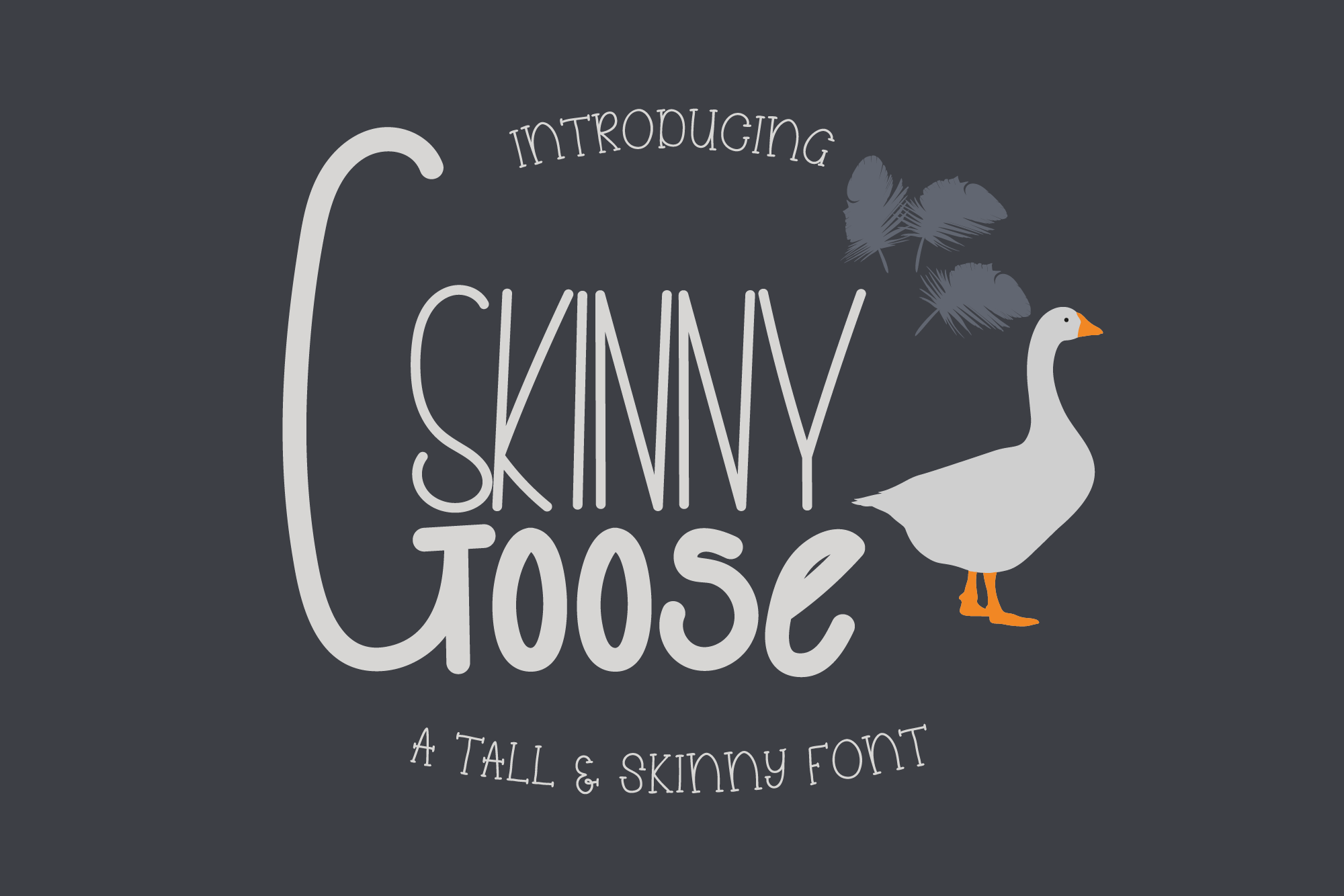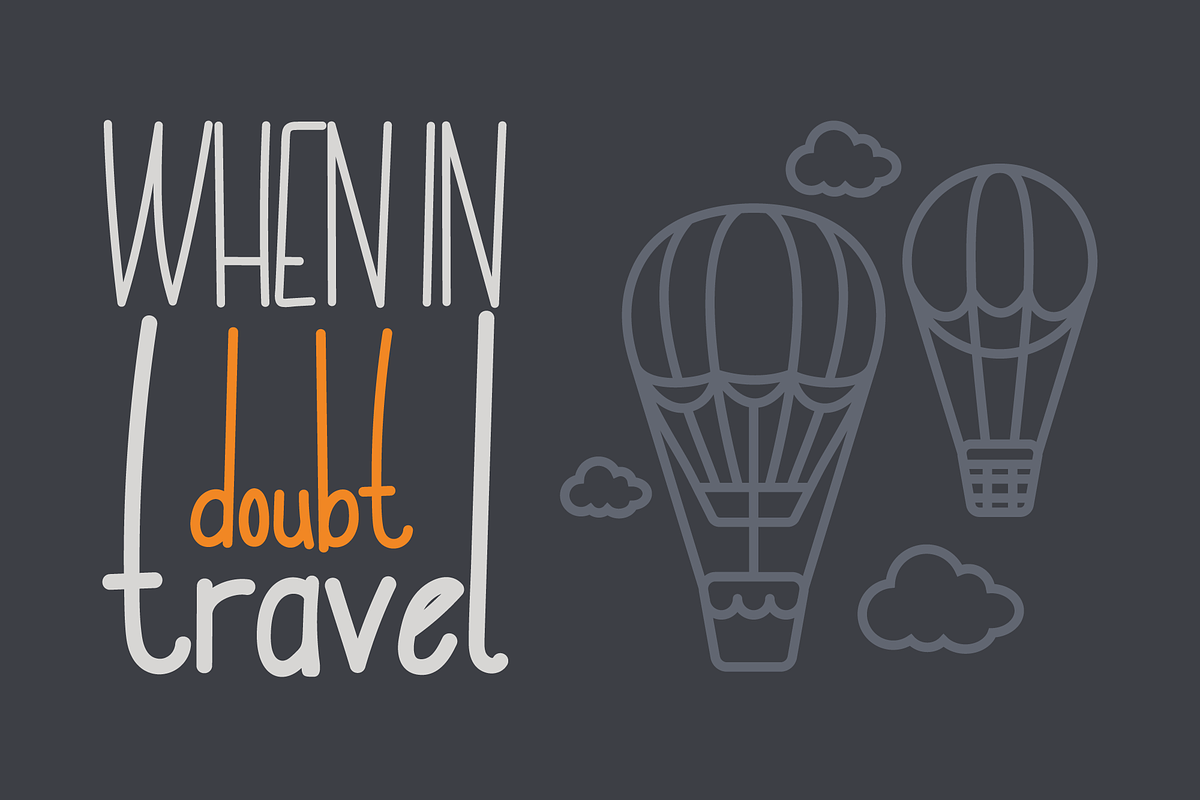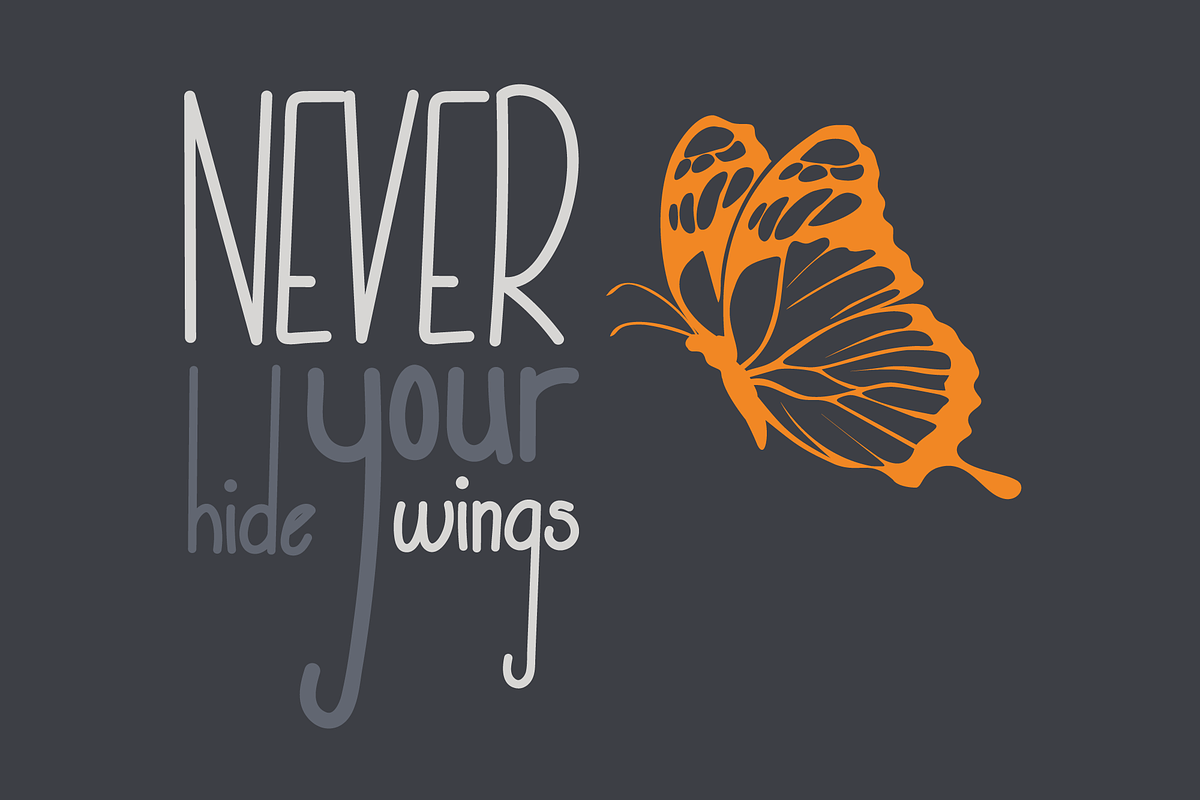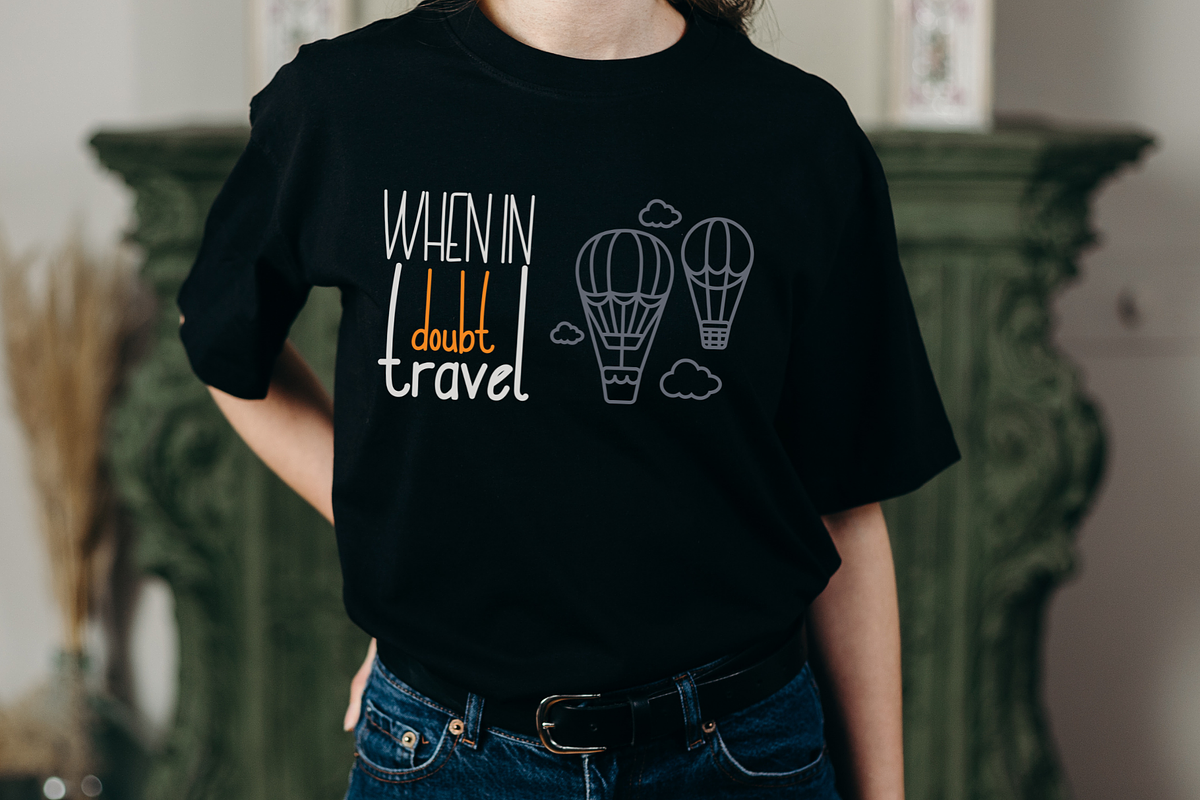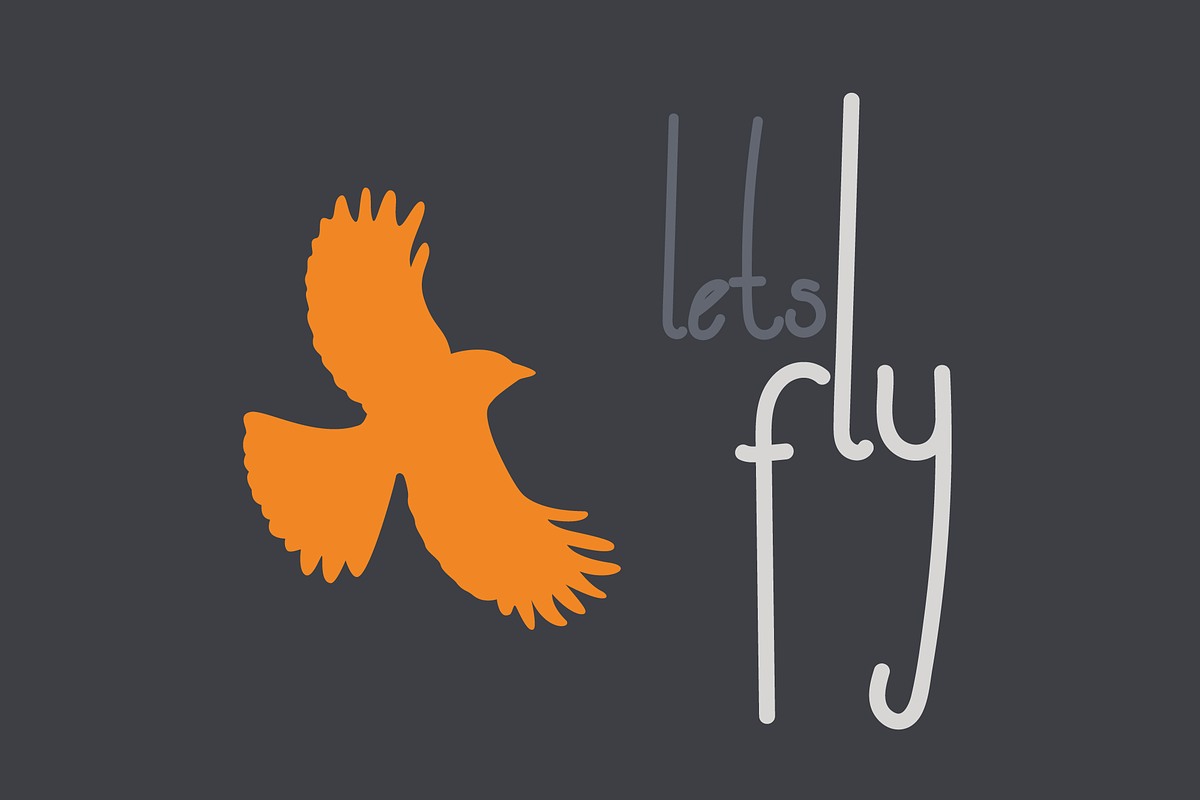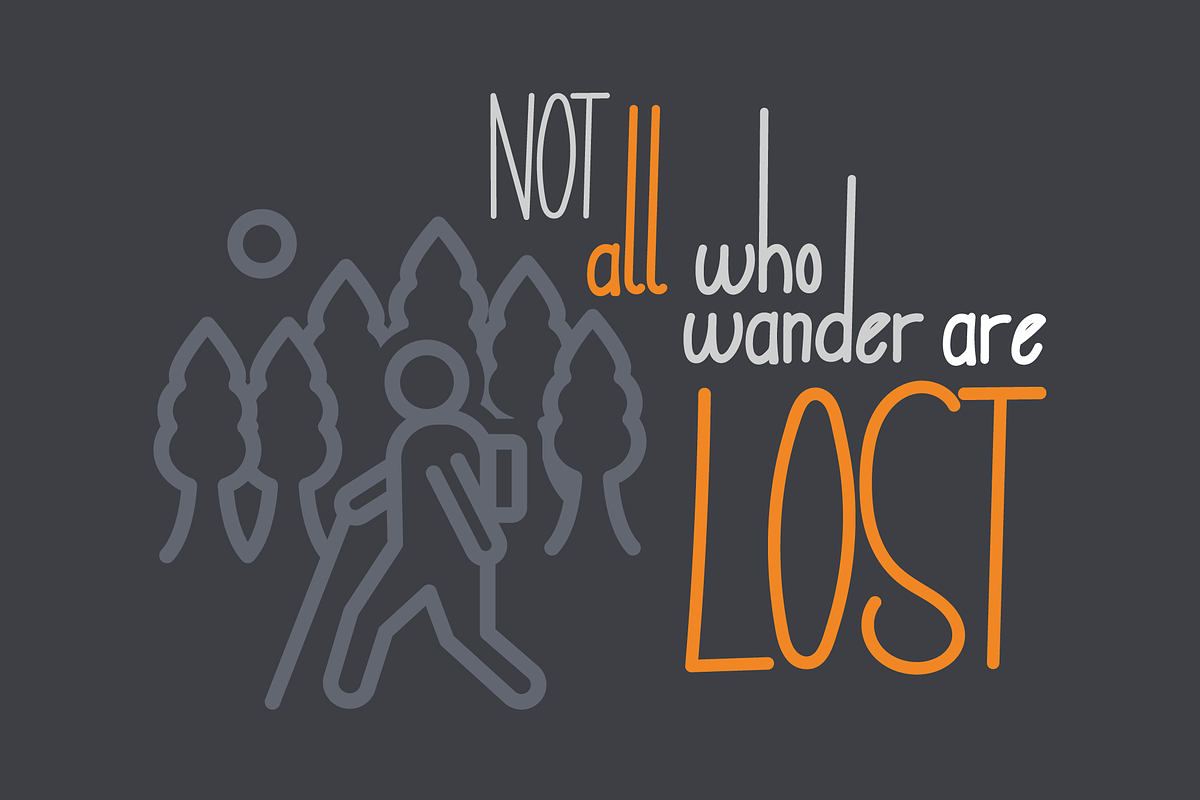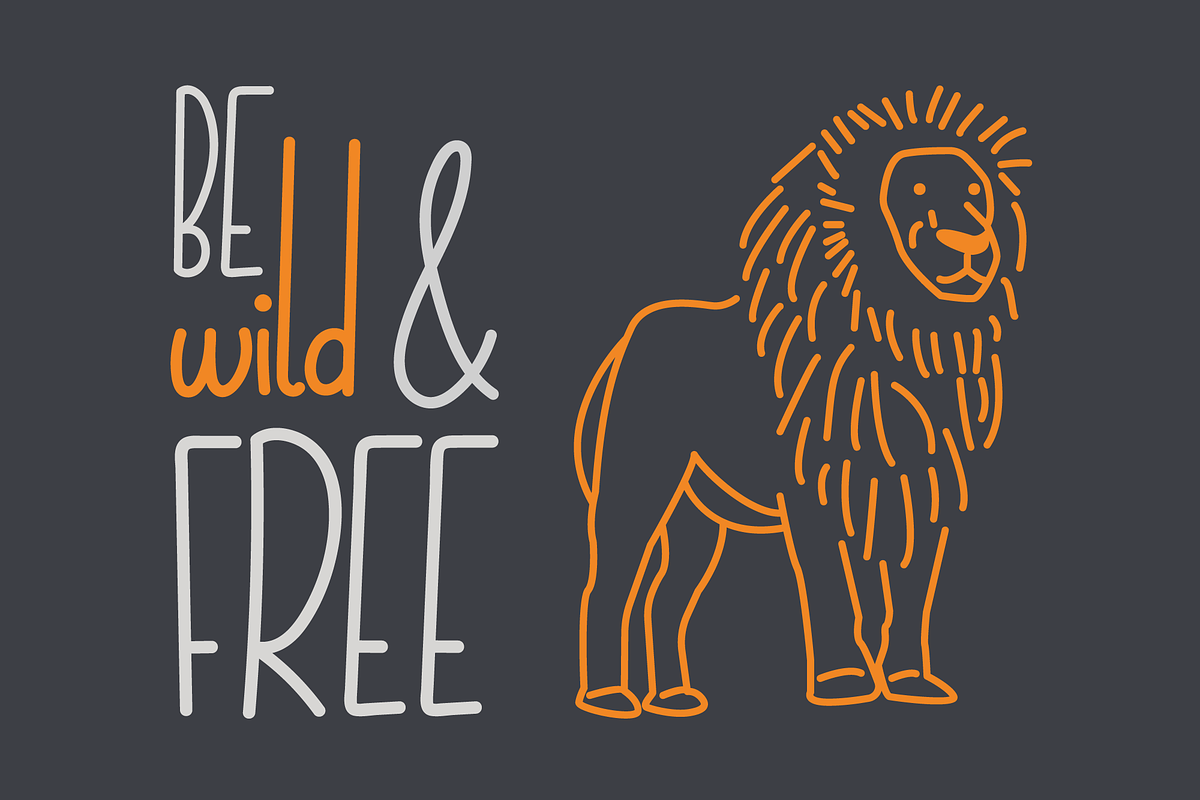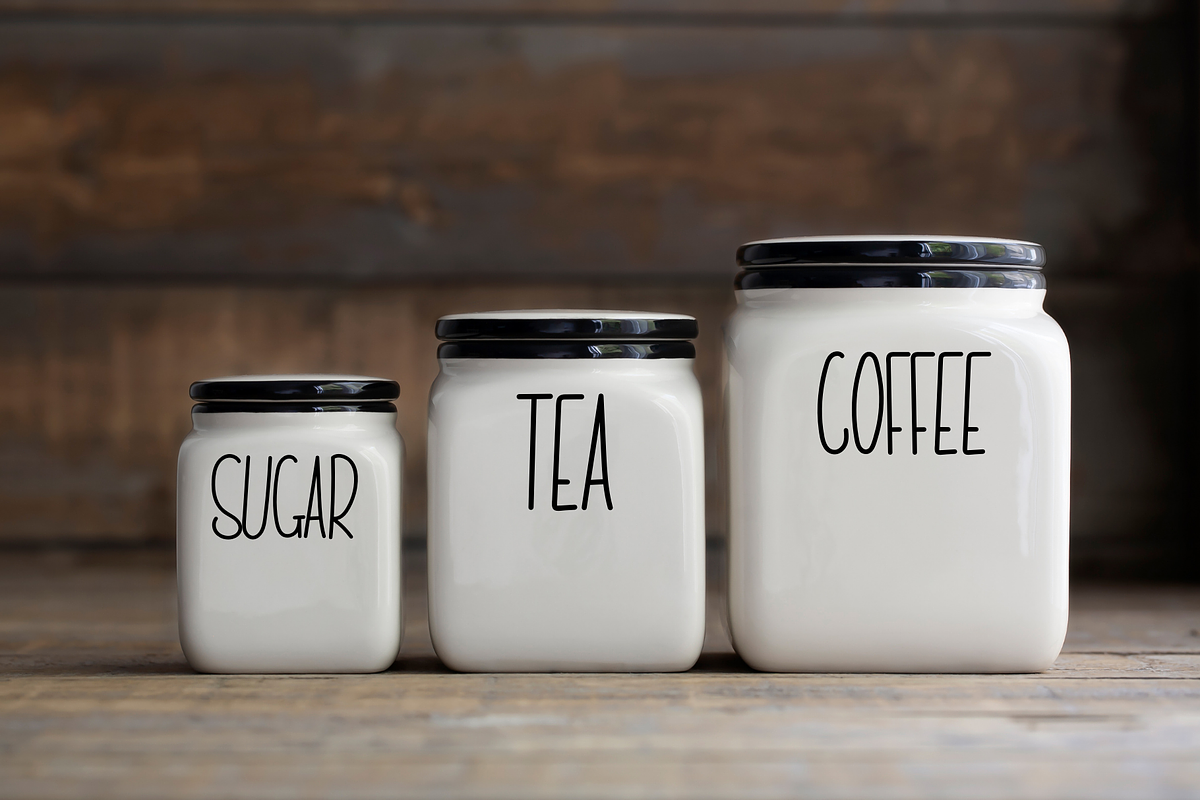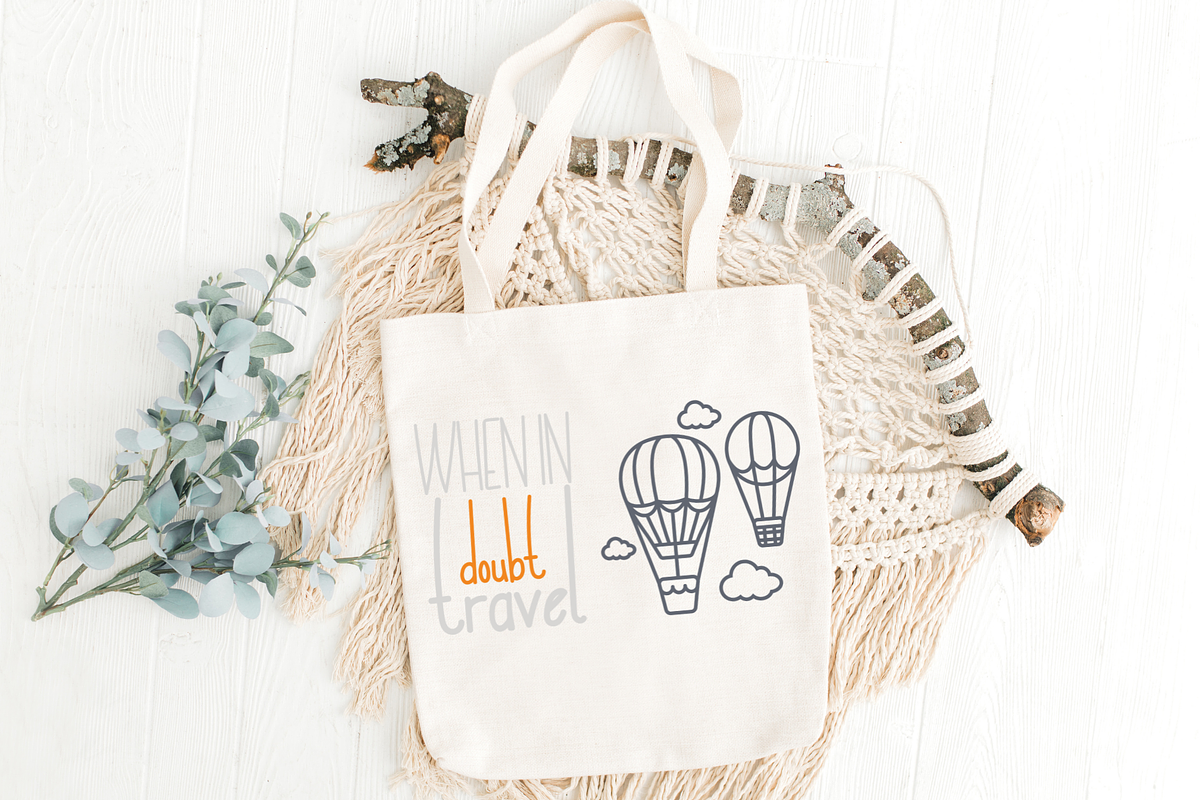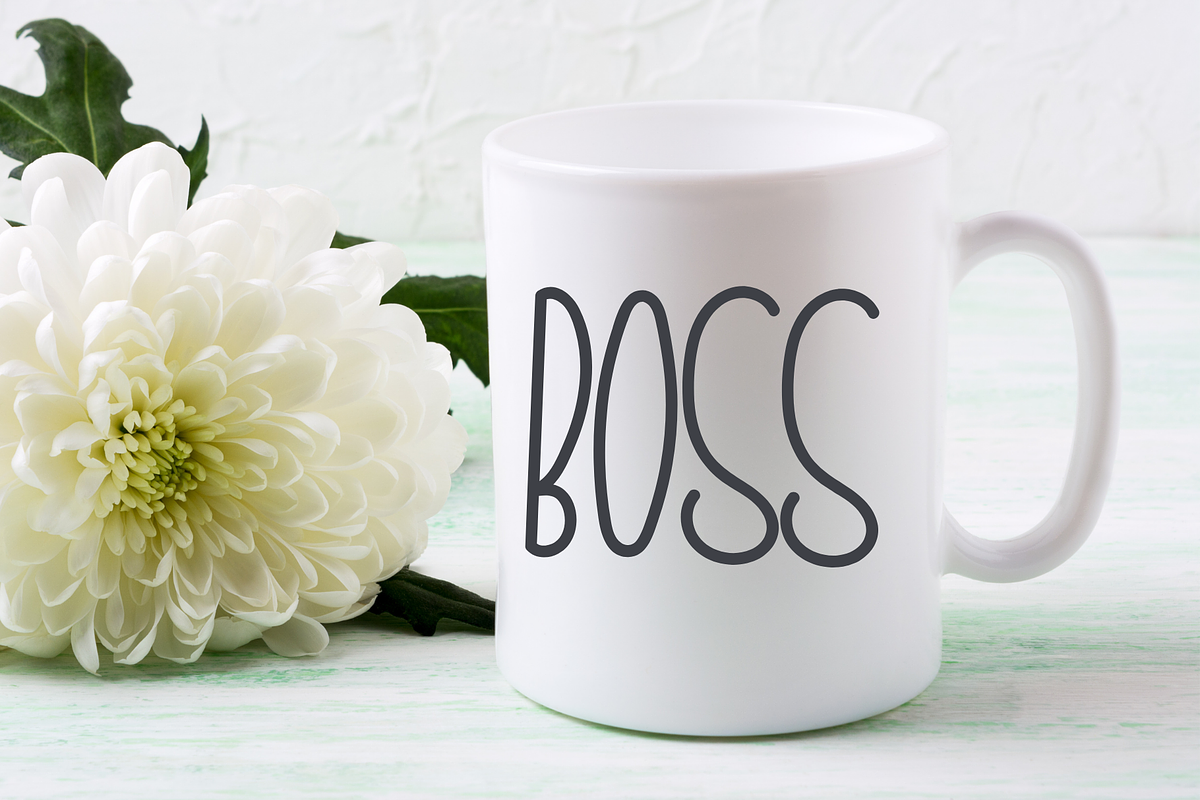
Skinny Goose Font
A tall handwritten opentype font.
Skinny Goose is a tall sans serif font with a quirky handwritten design. Perfect for a wide range of design styles and applications such as logo design, wedding invitations, business branding, & web design.